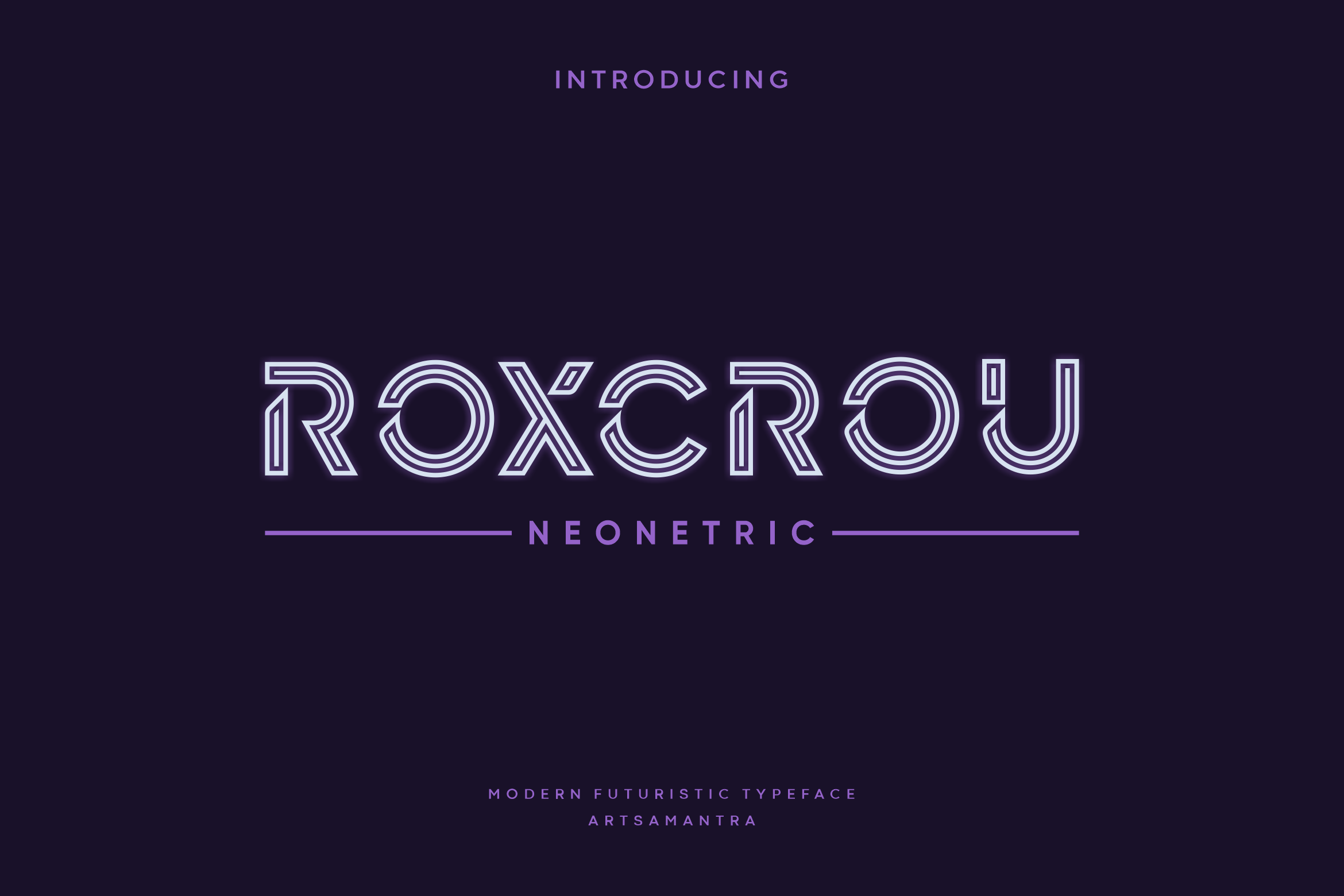
Roxcrou - Futuristic Typeface
Roxcrou inspired by the dazzling glow of neon lights, Neon Hypes instills passion and energy into every character. Coming in all-caps but with unique cutouts on the lower case, this will make your designs stand out and be unique. The neon backlighting further enhances the allure of the font, casting a glow that evokes the nostalgic charm of the illuminated signs. Roxcrou will be perfect for a variety of design needs, such as logos, brochures, magazines or designs that require a luminous hue to add an extra layer of visual interest, enhancing the overall composition.